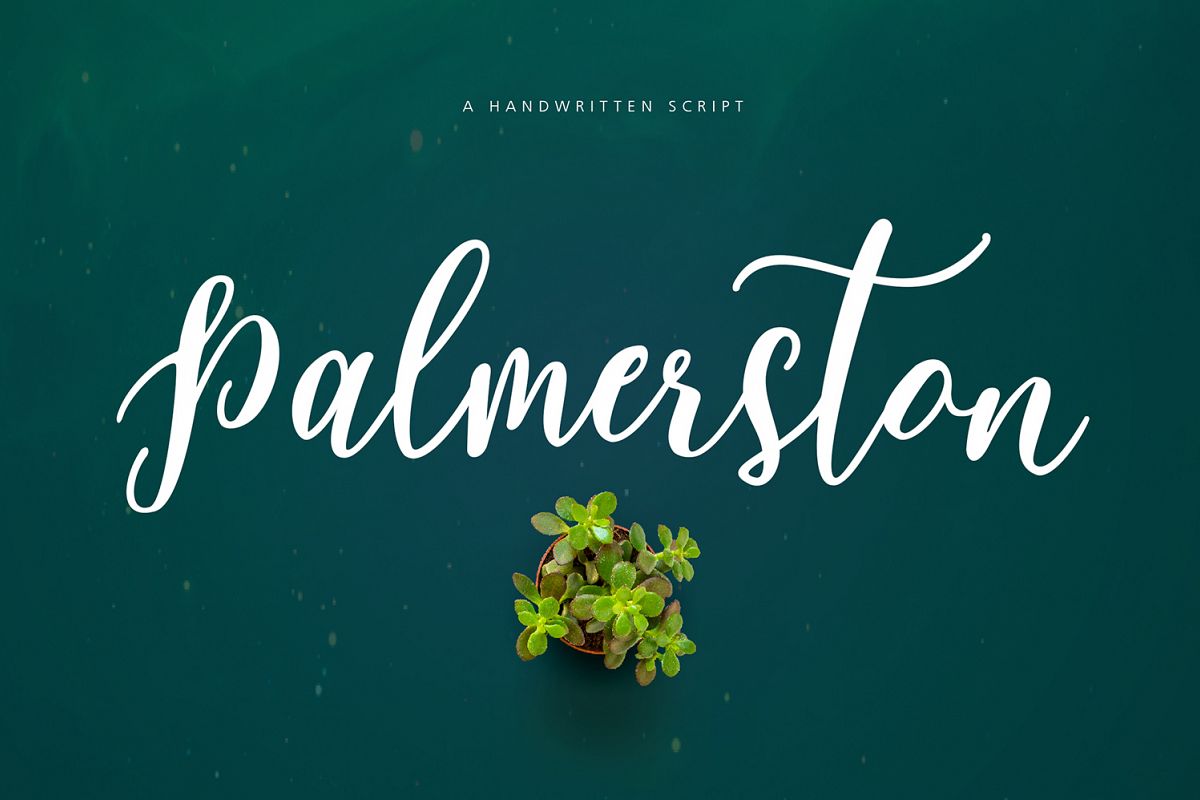
Palmerston
Palmerston font style comes with an amazing character. Ideal for a logo, a name tag, handwritten quotations, product packaging, goods, social media and greeting cards. It contains a complete set of lower and upper case letters, assorted punctuation, numbers, and support multi language.you also easy to access these fonts because I've given PUA unicode (font specific code), with tons of character alternatives. This package can be accessed in full by a craftsman or designer.Fonts Included:. Palmerston.otf